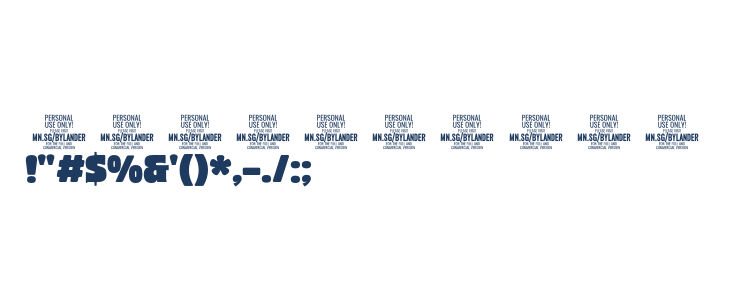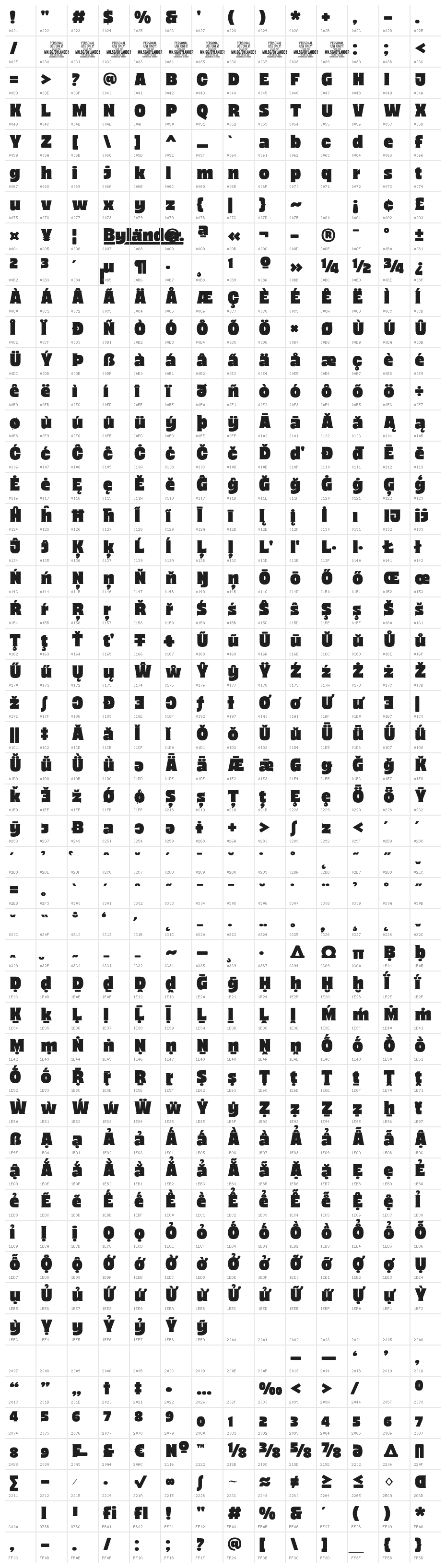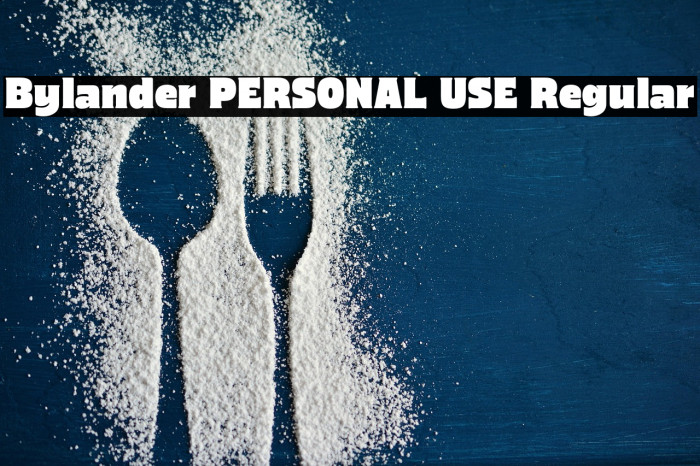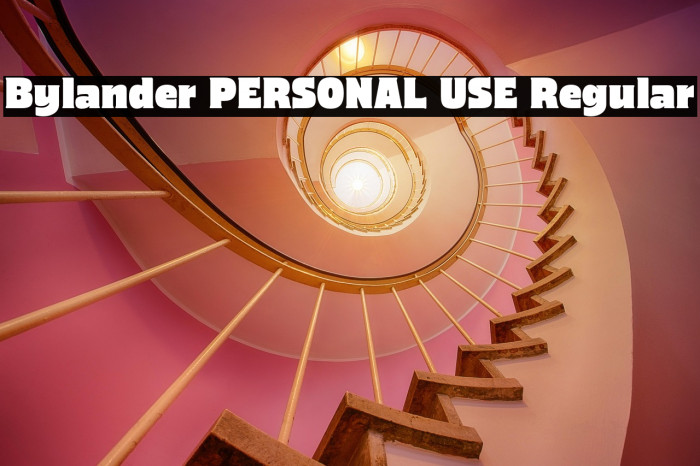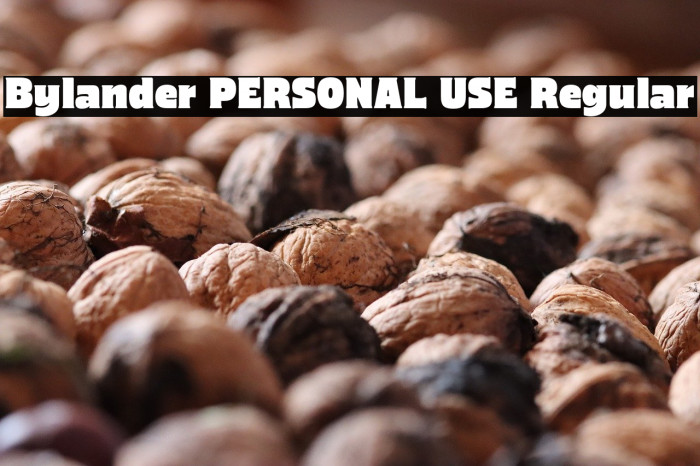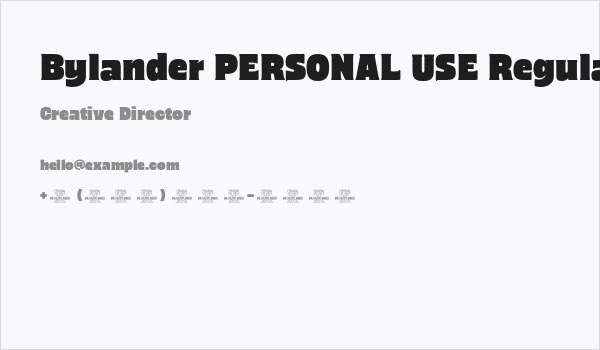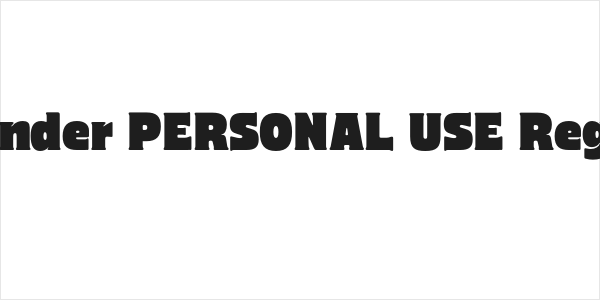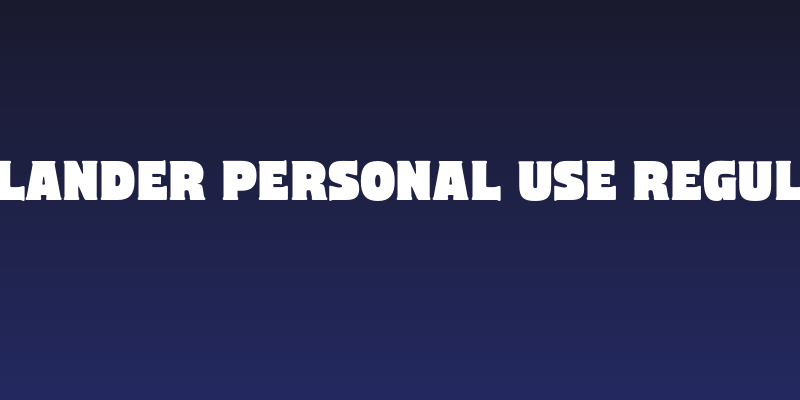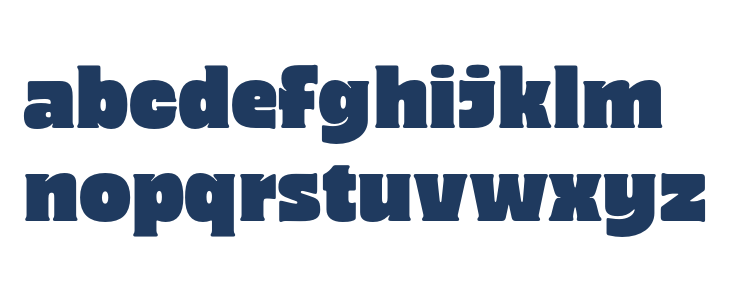
Bylander PERSONAL USE Regular Font
Bylander PERSONAL USE Regular Description
This bold and impactful font features thick, heavy strokes with a strong presence. The uppercase and lowercase letters are designed with a consistent weight, creating a cohesive look. The characters have a slightly condensed appearance, enhancing their boldness. The font includes a full set of uppercase and lowercase letters, numbers, and a variety of special characters, making it versatile for different uses. Its design is modern yet has a touch of vintage flair, making it suitable for projects that require a strong visual impact.
| Overall Style | Modern, Vintage |
| Proposed Projects | Ideal for headlines, posters, logos, and branding materials where a strong visual impact is needed. |